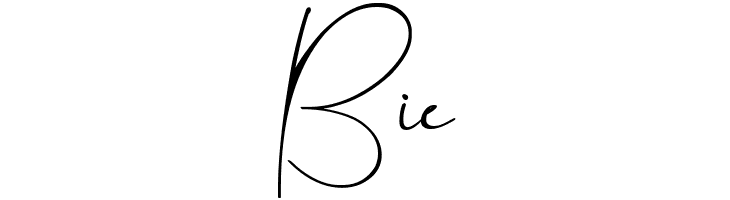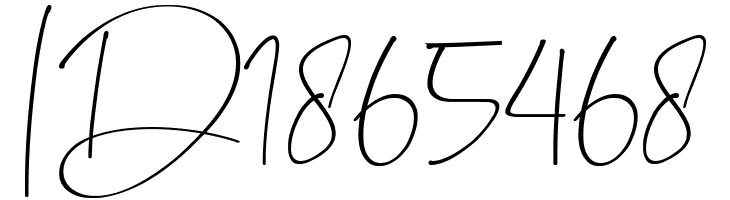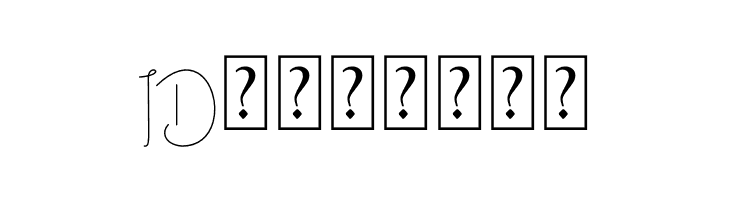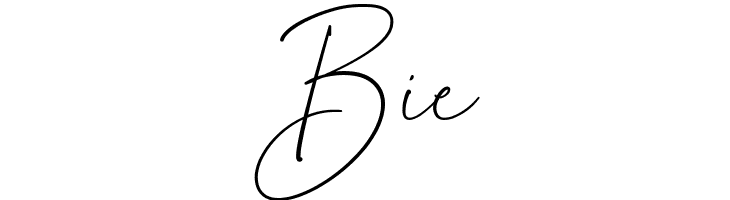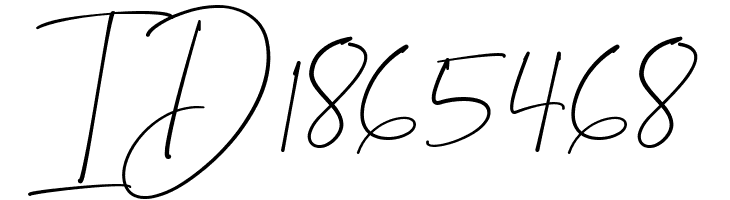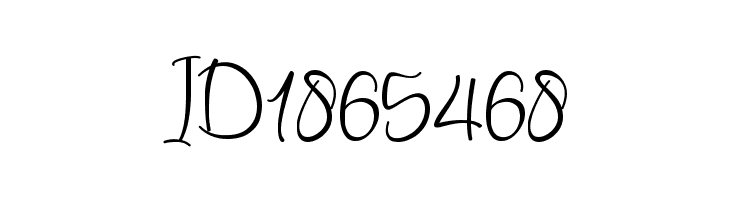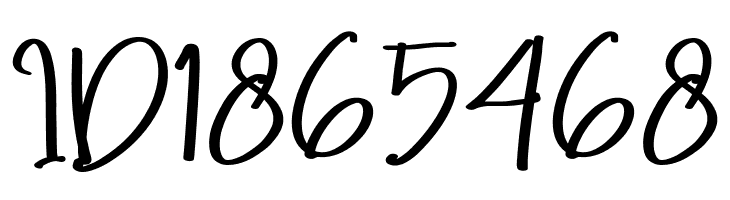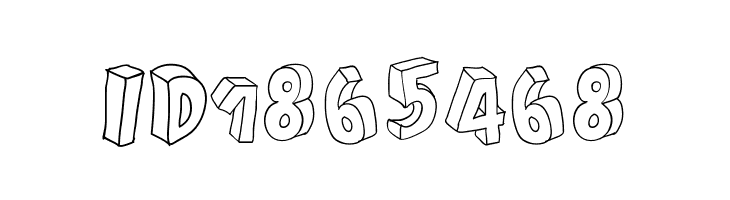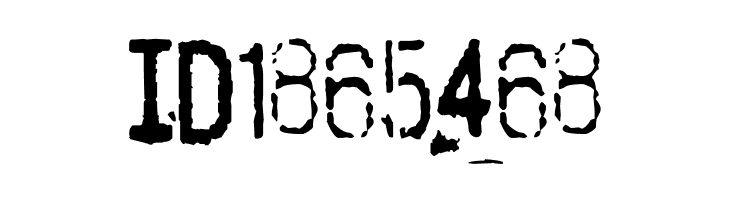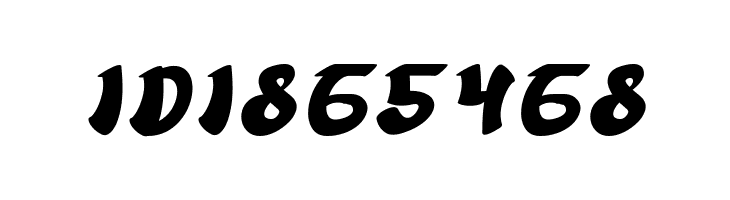
• Carlottena
A flowing, elegant script font with artistic curves and loops.
• Carmelot
A dynamic and elegant script font with flowing, fluid strokes.
• CarnalDevices
• Cartoon Blocks
A playful, 3D block-style font with bold outlines and a cartoonish flair.
• Cartoon Bold Italic
A bold, italicized cartoon-style font with playful curves and dynamic energy.
• Cartoon Italic
A bold, italicized font with a playful, cartoonish style.
• Cashier
A distressed, grunge-style font with a rugged, stencil-like appearance.
• Casilla
A dynamic, expressive handwritten font with fluid strokes and elegant slant.
• Catalisya
A playful and elegant script font with flowing, cursive letters.
• Cattalleya Demo
An elegant, flowing script font with thin, delicate lines and graceful curves.